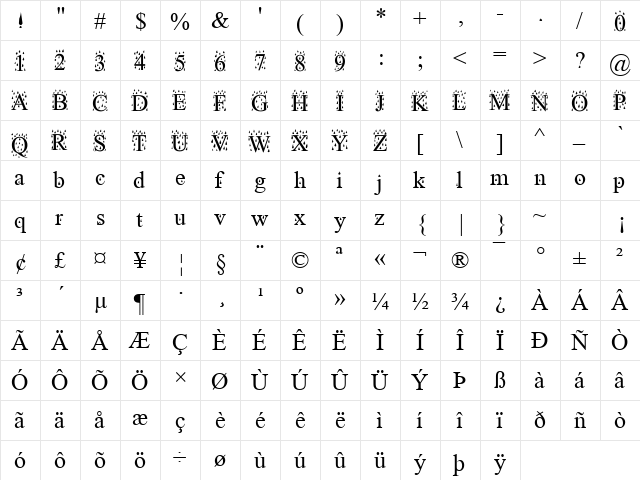
Crying Times Regular
Design Context for Crying Times Typeface
Crying Times is a composed and adaptable typeface that performs quietly and consistently across a wide range of design contexts.
Pro Tip: Use Crying Times in both headline and body roles to test its range before committing to a single application.